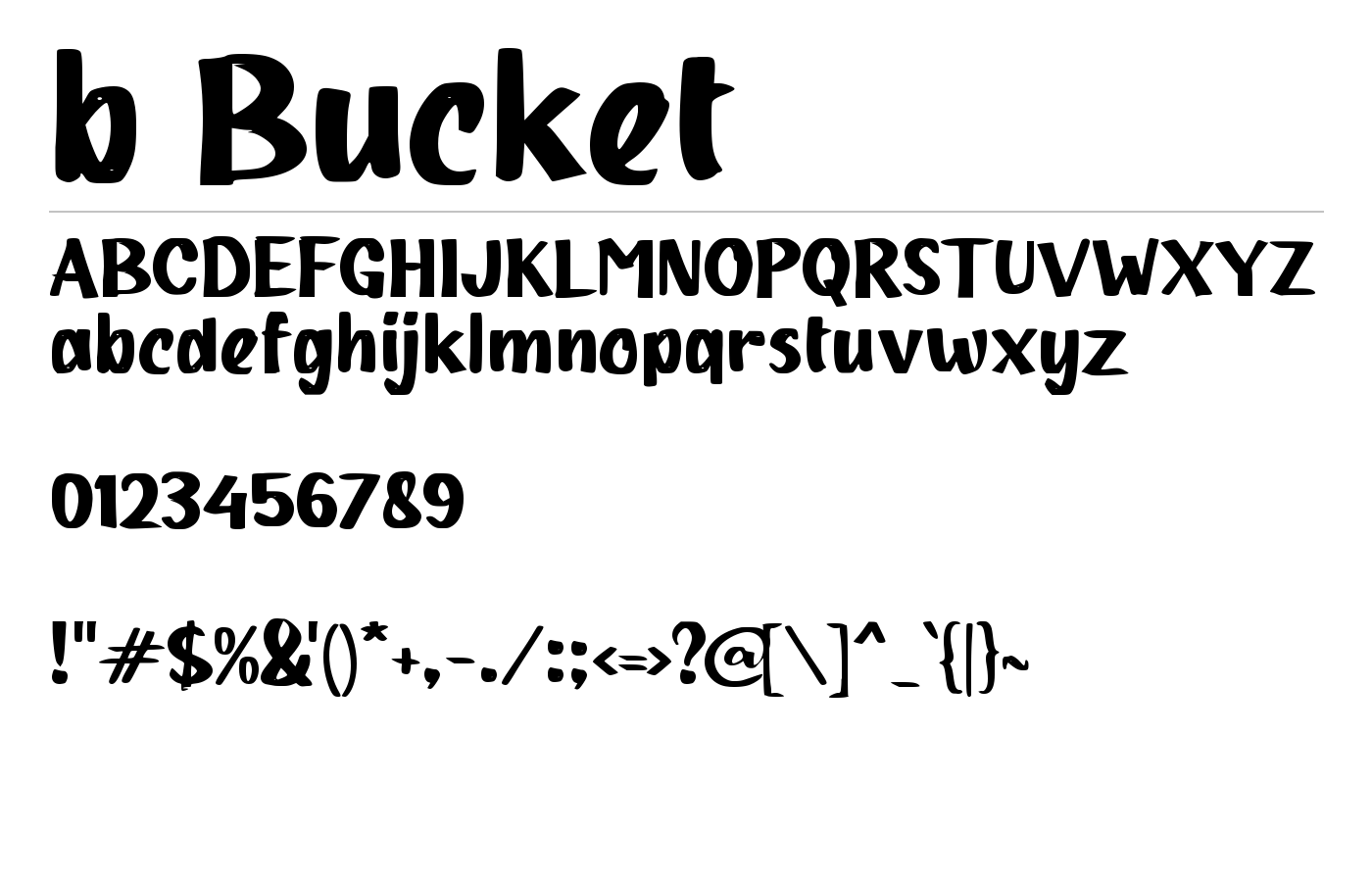
b Bucket Font is a playful, bold sans serif with an informal, hand-drawn feel. Its thick strokes, slightly uneven shapes, and quirky letterforms make it perfect for fun, casual designs that aim to capture attention with a friendly, approachable vibe. This font works well for children's books, creative branding, and eye-catching headlines where personality and warmth are key.
b Bucket Font